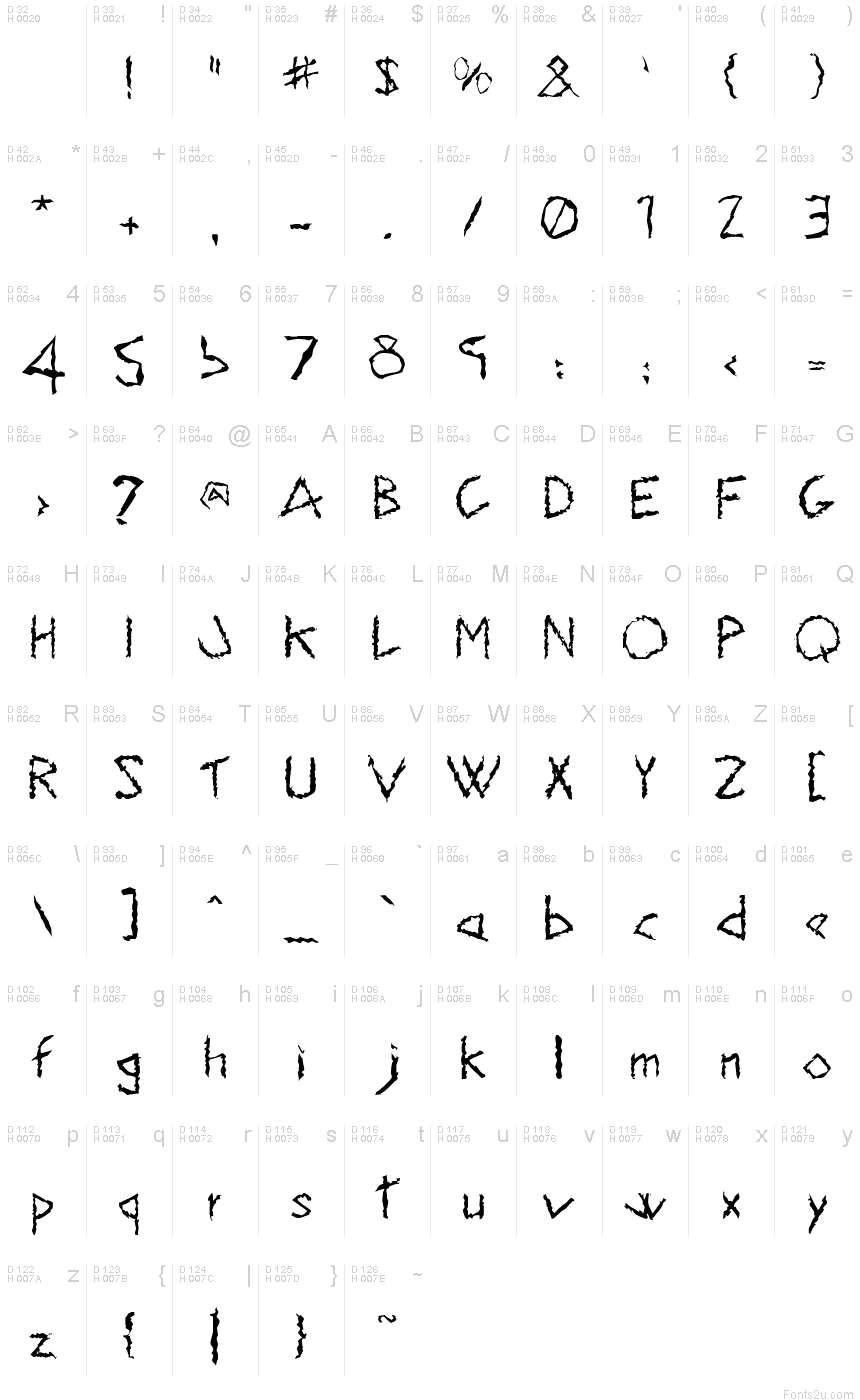
HiSky
Hi Sky font by Gemjm corporation is a free brush typeface that looks like it’s been ripped straight from a scratched metal surface. Each letter feels jagged and splintered, with rough ink edges that almost buzz against the white space, giving text an urgent, chaotic energy. It’s messy in a deliberate way, great when you want your words to feel raw, loud, and a bit dangerous.
Using Hi Sky, you can push horror posters, haunted house flyers, game titles, extreme sports branding, album covers, zines, and gritty YouTube thumbnails into full-on panic mode. This free font works best big and bold, where its torn strokes and irregular rhythm can really hit. Pair Hi Sky with a plain, narrow sans serif for body copy to keep everything readable while the headline does the screaming.